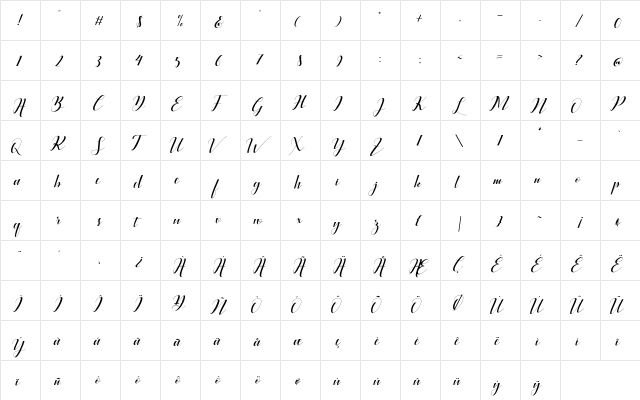
Ballqis Script Regular
Design Context for Ballqis Script Typeface
Ballqis Script flows with the natural rhythm of handwritten lettering, making it ideal for designs that call for warmth and personal expression.
Font Pairing: Combine Ballqis Script with a simple geometric sans for maximum contrast — the tension between flowing curves and clean structure is a classic typographic pairing.
Pro Tip: Use Ballqis Script for short runs of text — names, titles, or taglines. Extended body copy in script faces tires the eye quickly.